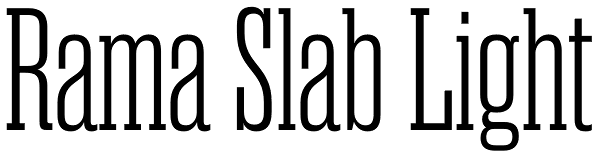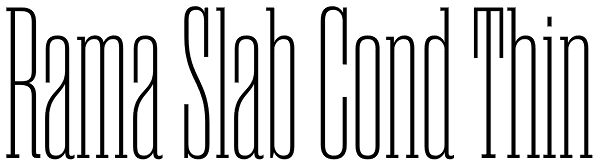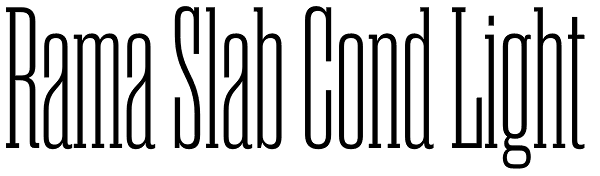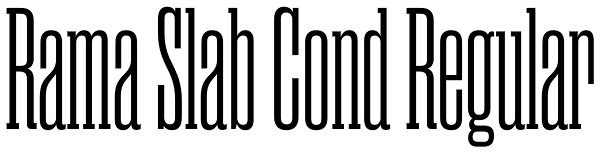
Rama Slab
Rama Slab is an antiqued slab serif designed inspired by 1800s-style wood type. All glyphs had been designed carefully to be retro-looking of the old time and to fill all with nostalgia. This condensed font family with 18 styles will be the best...